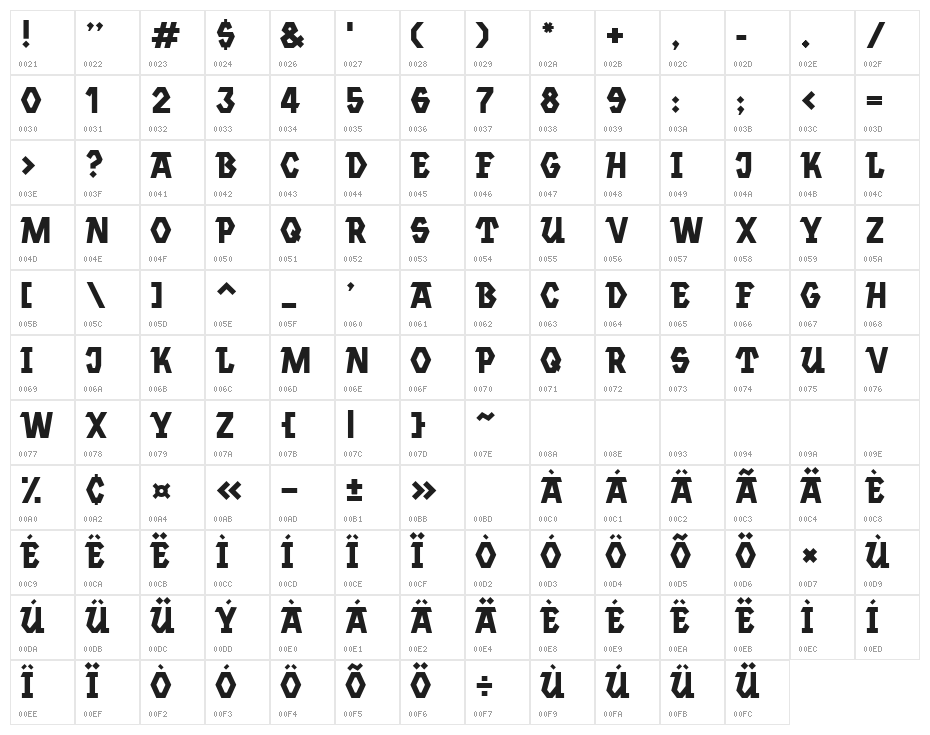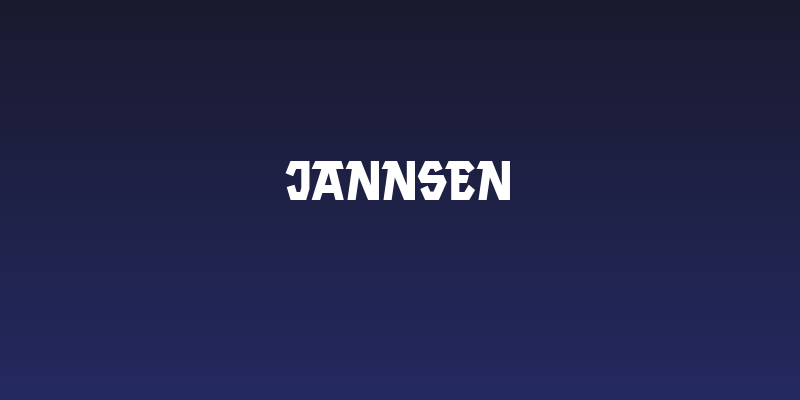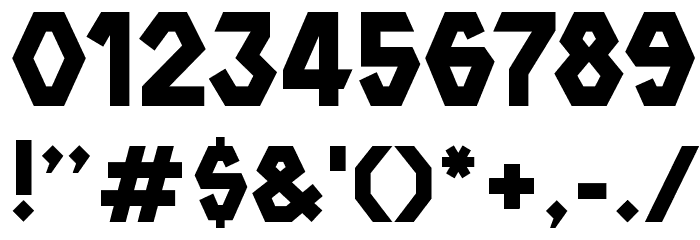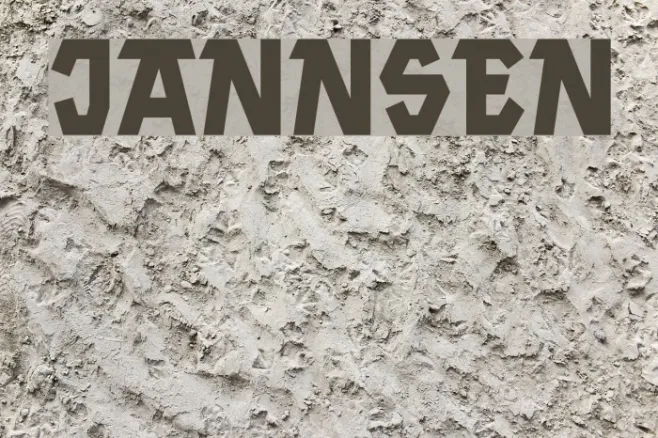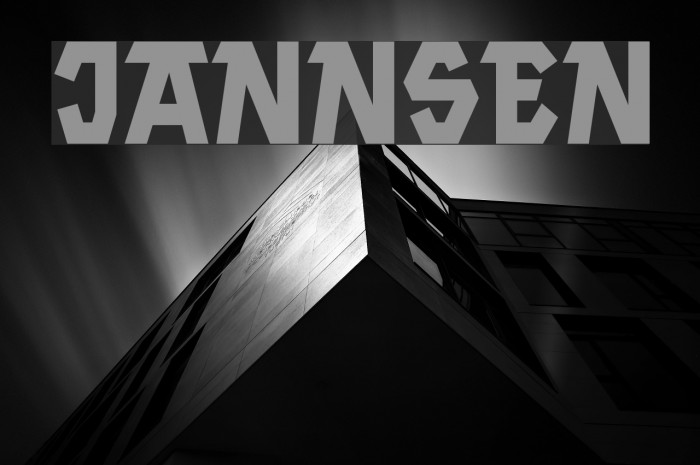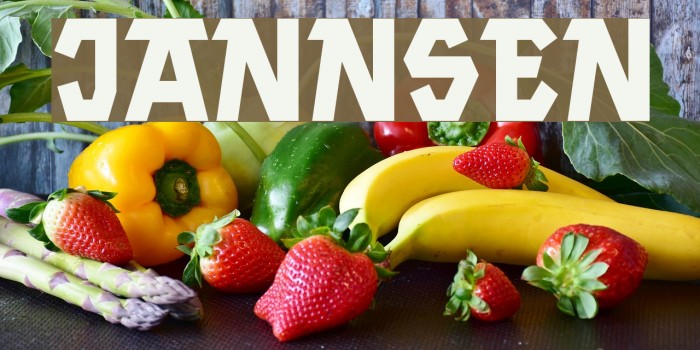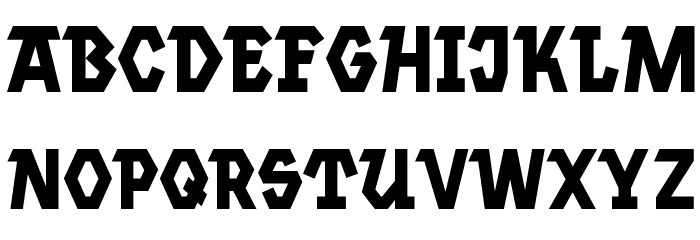
Jannsen Font
Jannsen Description
This font features a bold and geometric design with sharp angles and a strong presence. The uppercase and lowercase letters maintain a consistent style, emphasizing a blocky and robust appearance. The numbers and special characters follow the same angular and solid design, making them stand out with a distinctive and modern look. The font's structure is uniform, with each character displaying a unique, edgy style that is both eye-catching and versatile. Its boldness and geometric nature make it suitable for projects that require a strong visual impact.
| Proposed Projects | Ideal for branding, posters, headlines, and any design needing a bold statement. |